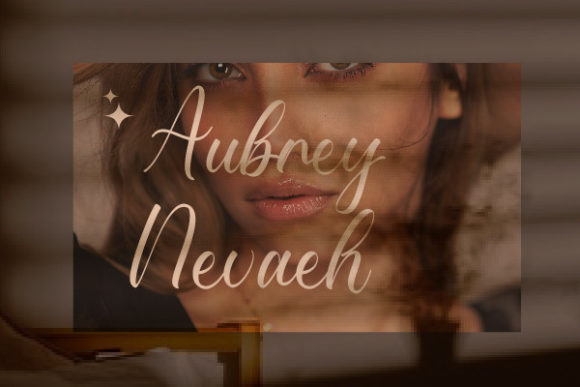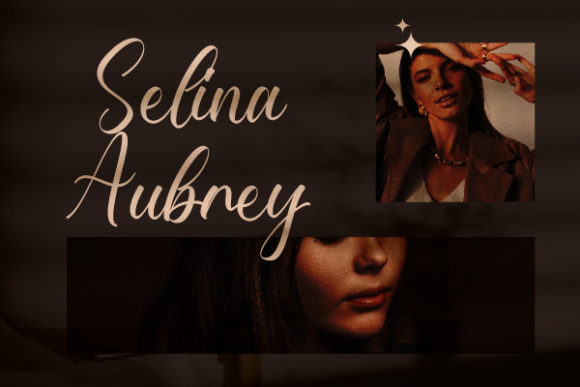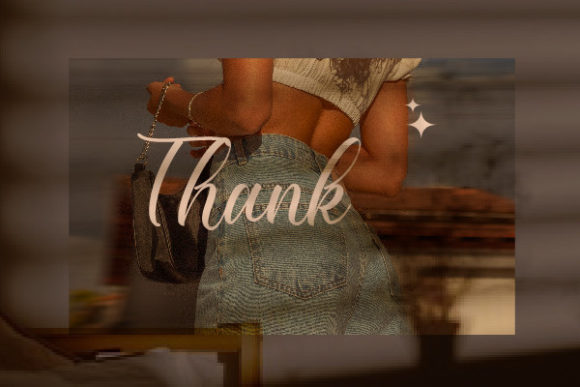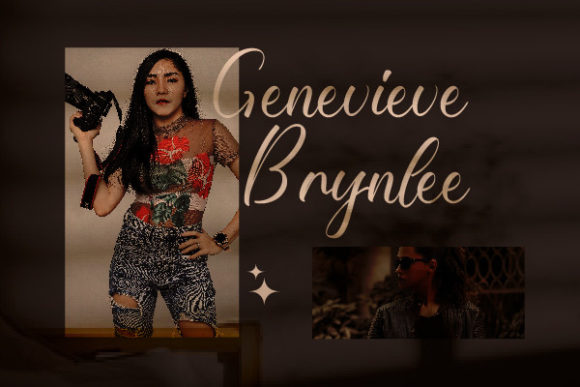
About Roslyn Aaliyah Font
Roslyn Aaliyah is an enchanting handwritten font. This versatile script font has a wide spectrum of applications ranging from greeting cards to headlines and is guaranteed to add a romantic feel to your next project.